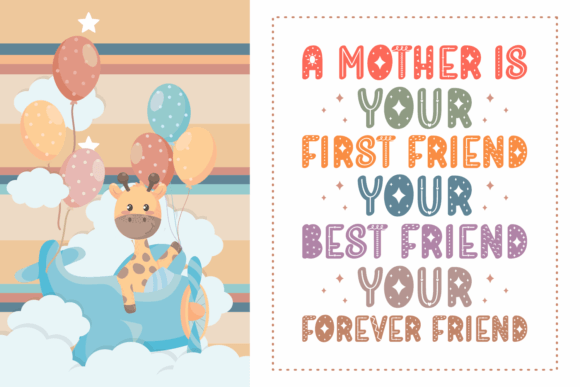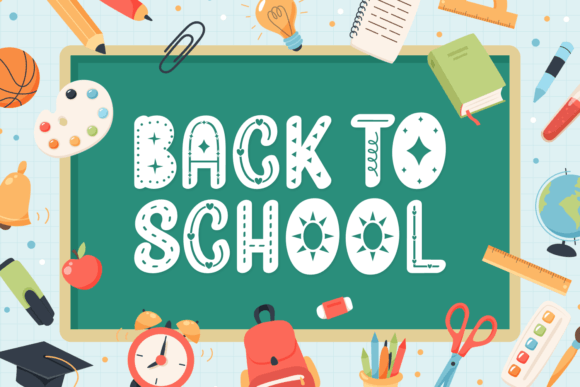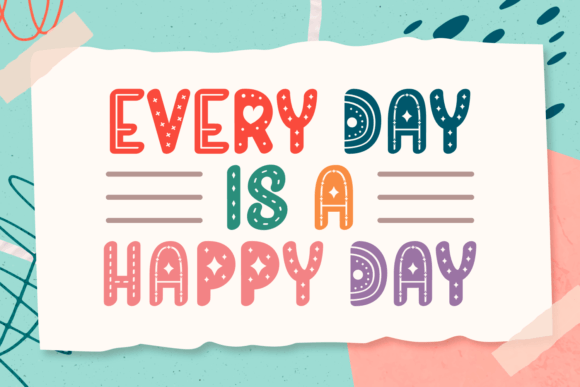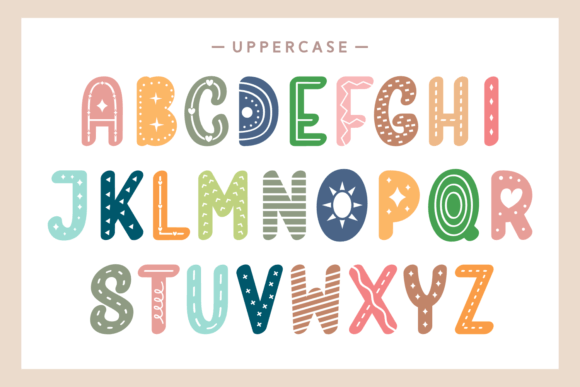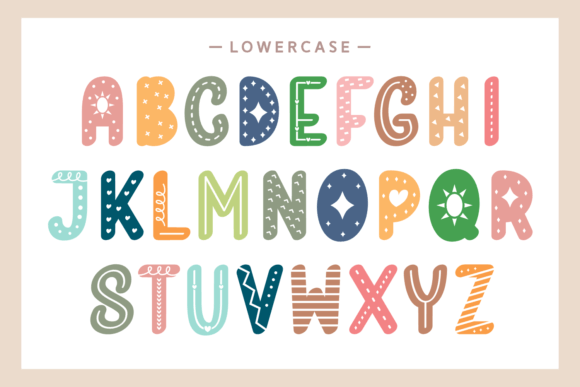
Bingo Stiky Font: Adding a Touch of Whimsy to Your Designs
Are you tired of using the same old fonts in your designs? Do you want to add a touch of childlike joy and playfulness to your projects? Look no further than the Bingo Stiky font! This whimsical and decorative font is perfect for designers and crafters who want to add a bit of fun and quirkiness to their work.
What is Bingo Stiky Font?
Bingo Stiky is a unique and eye-catching font that features bright, bold colors and a quirky design. Each letter is carefully crafted with a fun, carefree spirit that’s sure to delight. The font is perfect for a variety of projects, from invitations and greeting cards to posters and social media graphics.
Key Features of Bingo Stiky Font
- Whimsical Design: Bingo Stiky features a playful and whimsical design that’s sure to add a touch of fun to your projects.
- Bright and Bold Colors: The font features bright, bold colors that are sure to grab attention.
- Quirky Letters: Each letter is uniquely crafted with a fun, carefree spirit that’s sure to delight.
- Decorative: Bingo Stiky is a decorative font that’s perfect for adding a touch of personality to your projects.
Uses for Bingo Stiky Font
Bingo Stiky is a versatile font that can be used in a variety of projects, including:
- Invitations: Use Bingo Stiky to create fun and playful invitations for parties, events, and other celebrations.
- Greeting Cards: Add a touch of whimsy to your greeting cards with Bingo Stiky.
- Posters: Use Bingo Stiky to create eye-catching posters for events, promotions, and other marketing campaigns.
- Social Media Graphics: Add a bit of fun and personality to your social media graphics with Bingo Stiky.
- Crafting Projects: Bingo Stiky is perfect for crafters who want to add a touch of whimsy to their projects, such as scrapbooking, journaling, and card making.
Why Choose Bingo Stiky Font?
There are many reasons why you should choose Bingo Stiky font for your next project. Here are just a few:
- Unique and Eye-Catching: Bingo Stiky is a unique and eye-catching font that’s sure to grab attention.
- Fun and Playful: The font features a fun and playful design that’s sure to add a touch of childlike joy to your projects.
- Versatile: Bingo Stiky can be used in a variety of projects, from invitations and greeting cards to posters and social media graphics.
Tips for Using Bingo Stiky Font
Here are a few tips for using Bingo Stiky font in your projects:
- Use it Sparingly: Because Bingo Stiky is a decorative font, it’s best to use it sparingly. Use it for headings or titles, and a more traditional font for body text.
- Pair it with Other Fonts: Bingo Stiky looks great when paired with other fonts. Try pairing it with a sans-serif font for a fun and modern look.
- Experiment with Colors: Bingo Stiky features bright, bold colors, but you can also experiment with different colors to create a unique look.
Bingo Stiky font is a fun and playful font that’s perfect for designers and crafters who want to add a touch of whimsy to their projects. With its bright, bold colors and quirky design, this decorative font is sure to delight. Whether you’re creating invitations, greeting cards, posters, or social media graphics, Bingo Stiky is a great choice. So why not give it a try and see how it can add a touch of childlike joy to your designs?